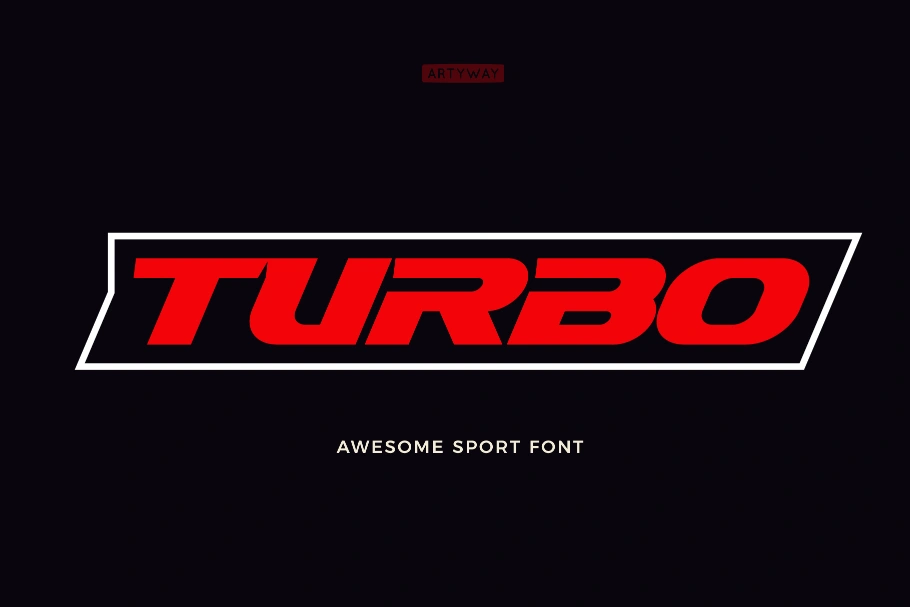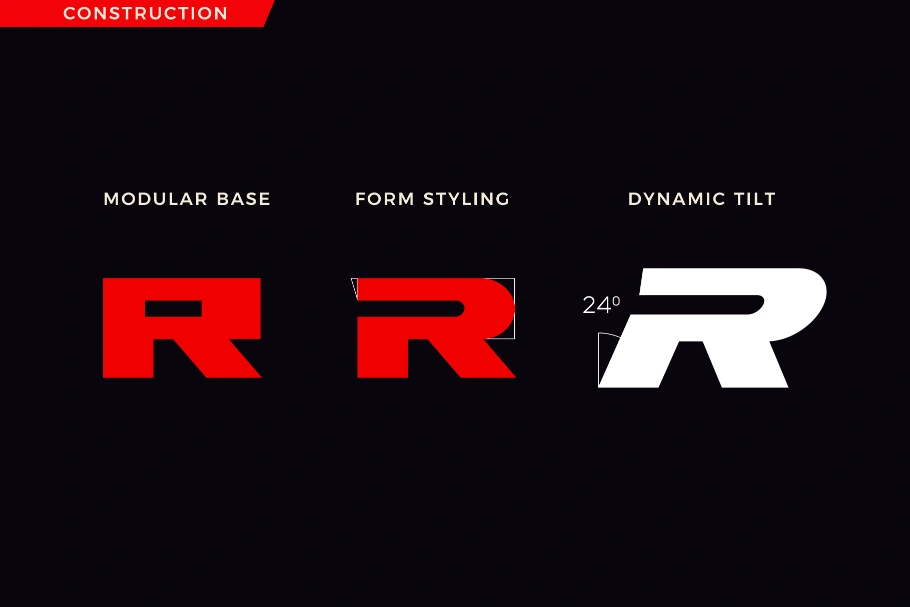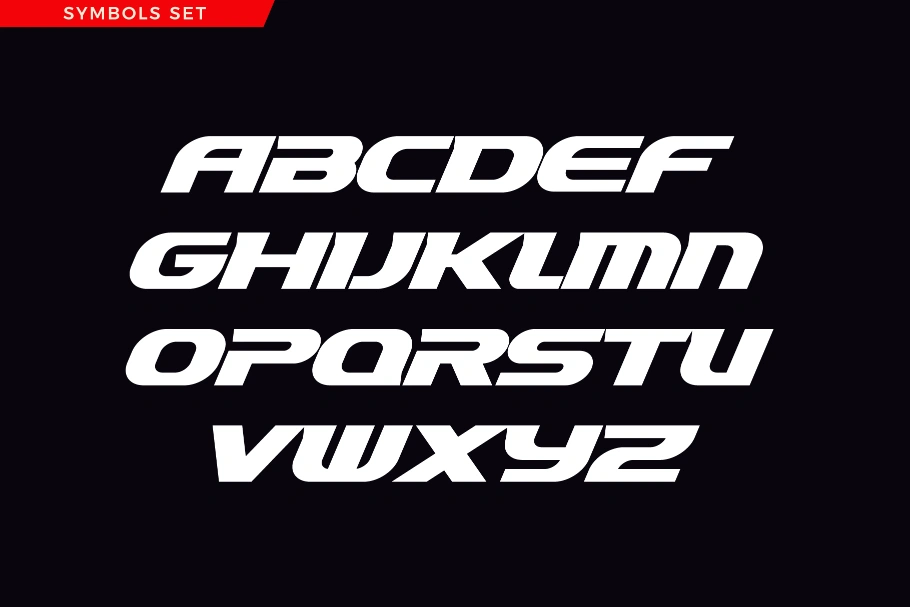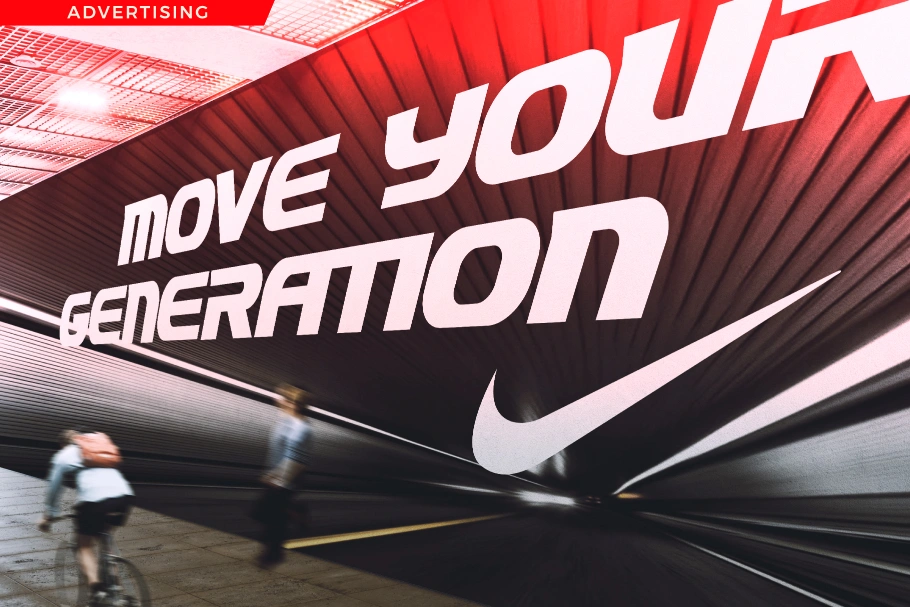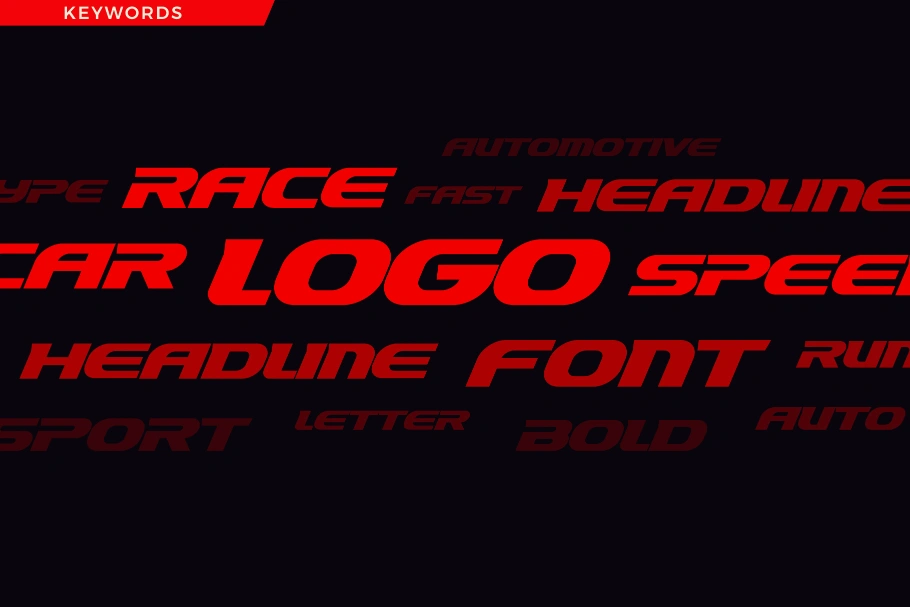
I’m a typographer and graphic designer who spends most of my time testing typefaces in real projects. While searching for a bold option for a branding campaign, I discovered the Turbo Font. Its wide and striking look instantly felt right for headlines and logo work.
I used it on a poster and packaging design where strong visual impact mattered most. Seeing how easily it carried both modern and geometric style, I knew it was worth sharing. Writing this review isn’t just about fonts; it’s about showing how one typeface can change the feel of an entire project.
The Turbo Font is a bold display font designed by Artyway. It focuses on delivering weight and clarity in every character. The typeface has a geometric foundation that creates clean edges, strong lines, and a balance between modern typography and expressive creativity. With Turbo, you get more than a font family, it’s a design tool that makes wide text blocks look powerful.
This display font belongs to the category of typefaces that instantly draw attention. It is ideal for print, flyers, posters, or digital layouts where typography leads the design. The sharp letters make it suitable for big headlines, bold statements, and projects that need confidence in their style.
Artyway, the studio behind Turbo, has developed fonts that push creative boundaries. Their focus on accessible yet stylish releases makes it easy for designers to explore thousands of fonts while finding something unique. Turbo stands out because it doesn’t just follow trends. Instead, it creates a visual language of its own. Its release gave designers a new choice for impactful text design across both mobile and web applications.
The design itself is wide, bold, and creative. Each letter carries a geometric feel that stays consistent across characters. This makes it perfect for headlines where clarity and style need to work together. It also includes italic variations for projects that need movement and energy.
The typeface can be used in different ways depending on the project. Its strength lies in poster design, branding, and packaging, but it also adapts well to digital text and print media. Turbo can work as a standalone headline or be paired with simpler fonts for balance.
The Turbo Font Free Download is best used in projects where boldness matters. Think posters, flyers, or advertising campaigns where the typography must stand out. Its wide style fills space with confidence, making it perfect for headlines that need to capture attention.
Logos designed with Turbo carry a strong, geometric quality. This works especially well for brands that want a modern, powerful image. Packaging also benefits from its style since bold letters are easy to read across print and mobile displays.
Web designers can apply Turbo to headers, banners, and creative layouts. The font translates well into digital projects, supported by its clean letter shapes and typography-ready formats. It also works for mobile interfaces, where clear and bold text improves usability.
For creative projects, Turbo adds a unique edge. It can be used to create typographic posters, text-driven branding, or even editorial layouts where wide, bold letters set the tone. Whether you are designing with thousands of fonts available or looking for one reliable display font, Turbo delivers an option that is both stylish and functional.